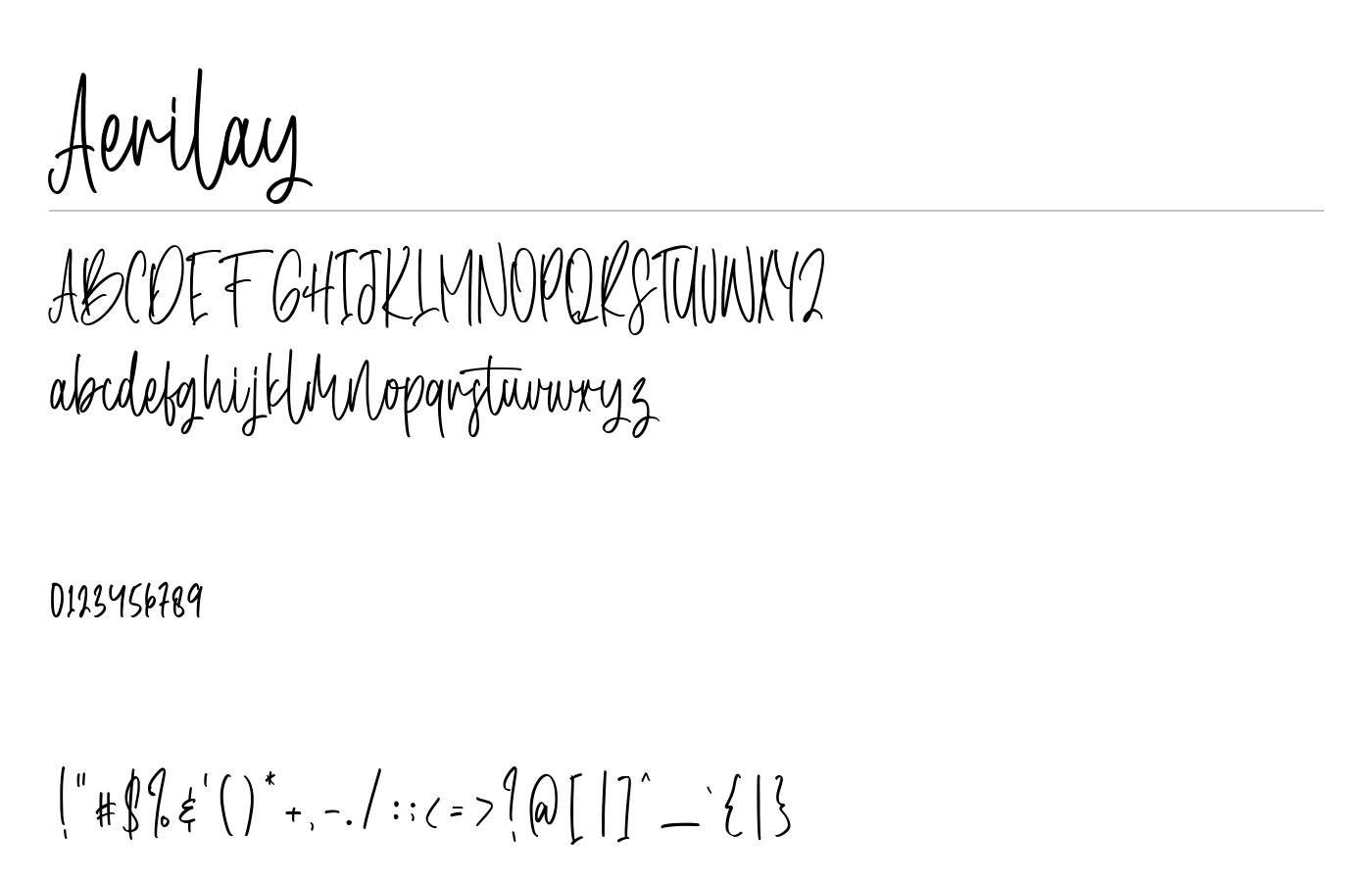
Aerilay is a slender, handwritten script font with a playful and airy character, featuring tall, narrow letterforms and delicate strokes that mimic natural penmanship. Its casual and whimsical style makes it perfect for creative projects, invitations, and branding that seeks a personal, friendly touch without being overly formal. This font shines in designs where a light, approachable, and artistic feel is desired.
Aerilay Font
About Aerilay Font